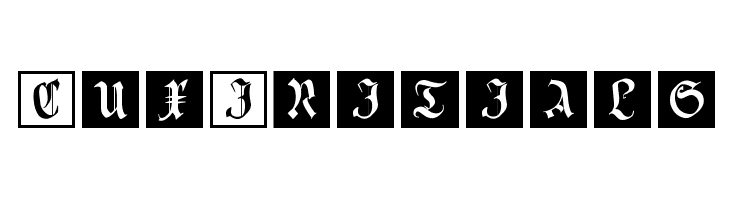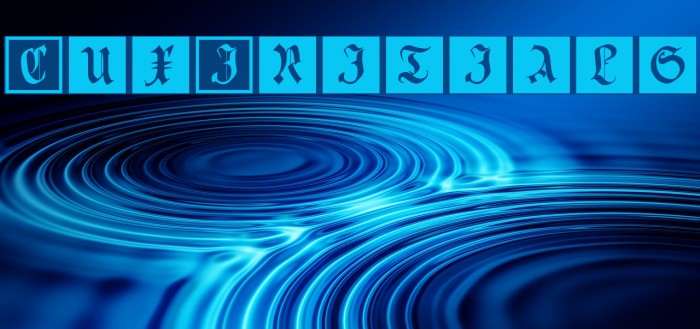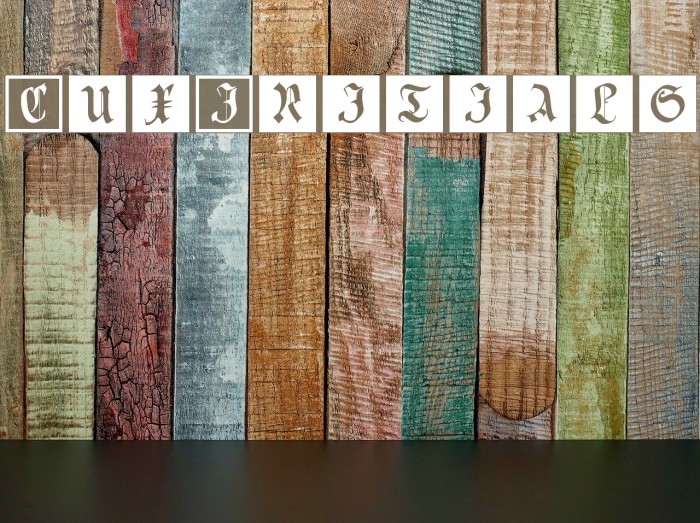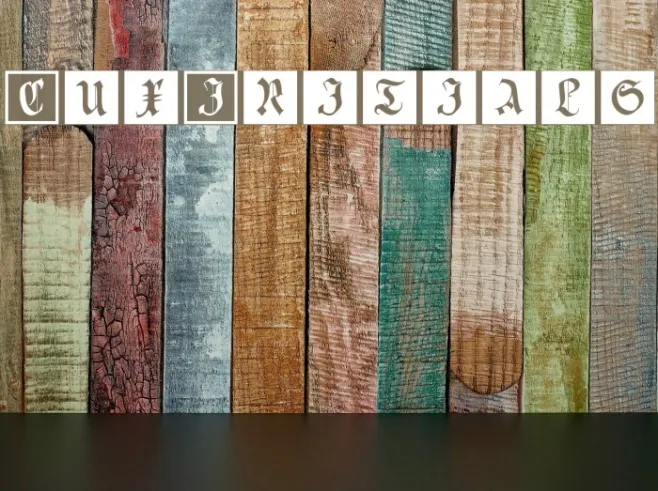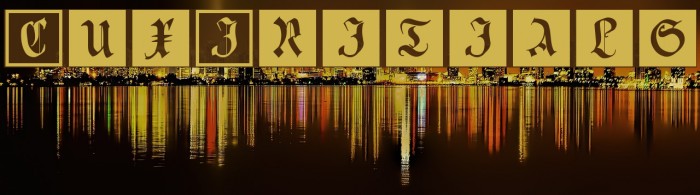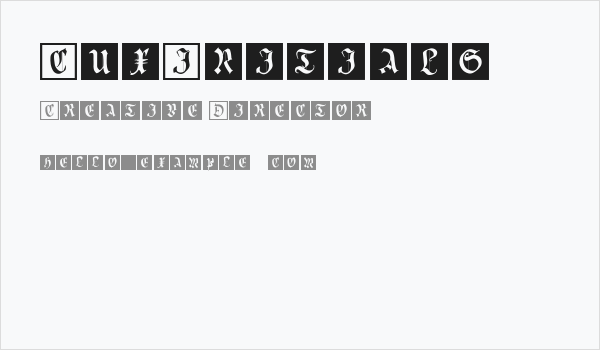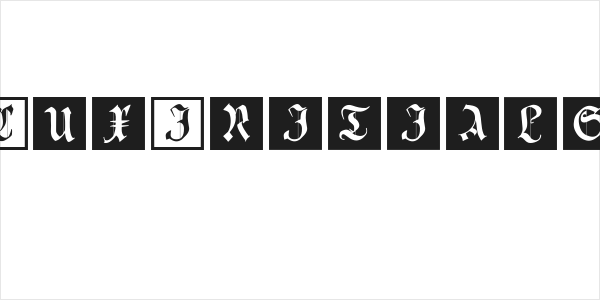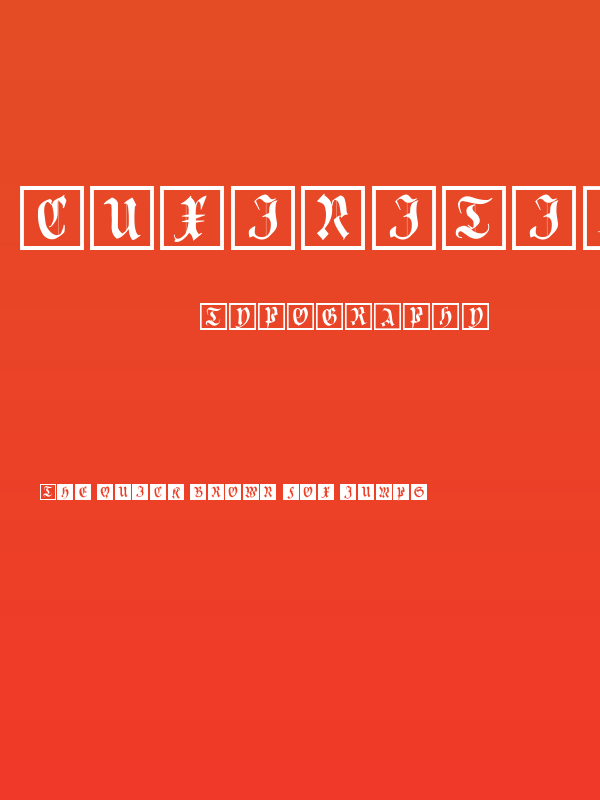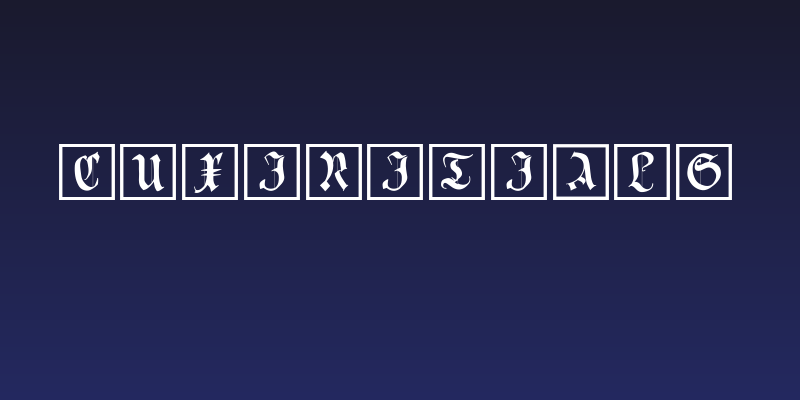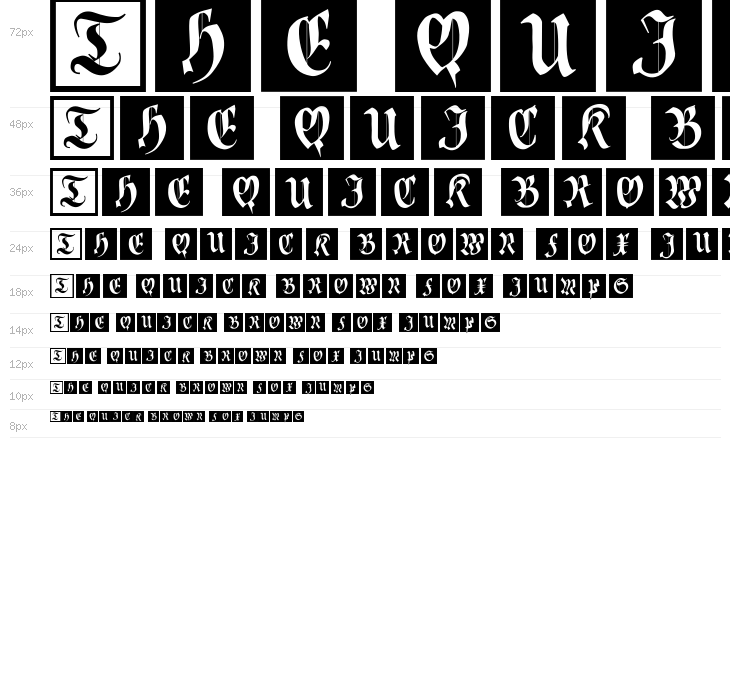
CuxInitials Font
CuxInitials Description
This font features a classic blackletter style, characterized by its ornate and intricate letterforms. Each character is enclosed in a square, giving it a distinct and bold appearance. The strokes are sharp and angular, typical of traditional Gothic scripts, with high contrast between thick and thin lines. The decorative elements within each letter add a sense of historical elegance, making it suitable for projects that require a touch of medieval or vintage flair.
| Use Case | Logos, Decorative headings, Certificates |
| Proposed Projects | Ideal for use in certificates, invitations, logos, and branding that require a historical or vintage aesthetic. |